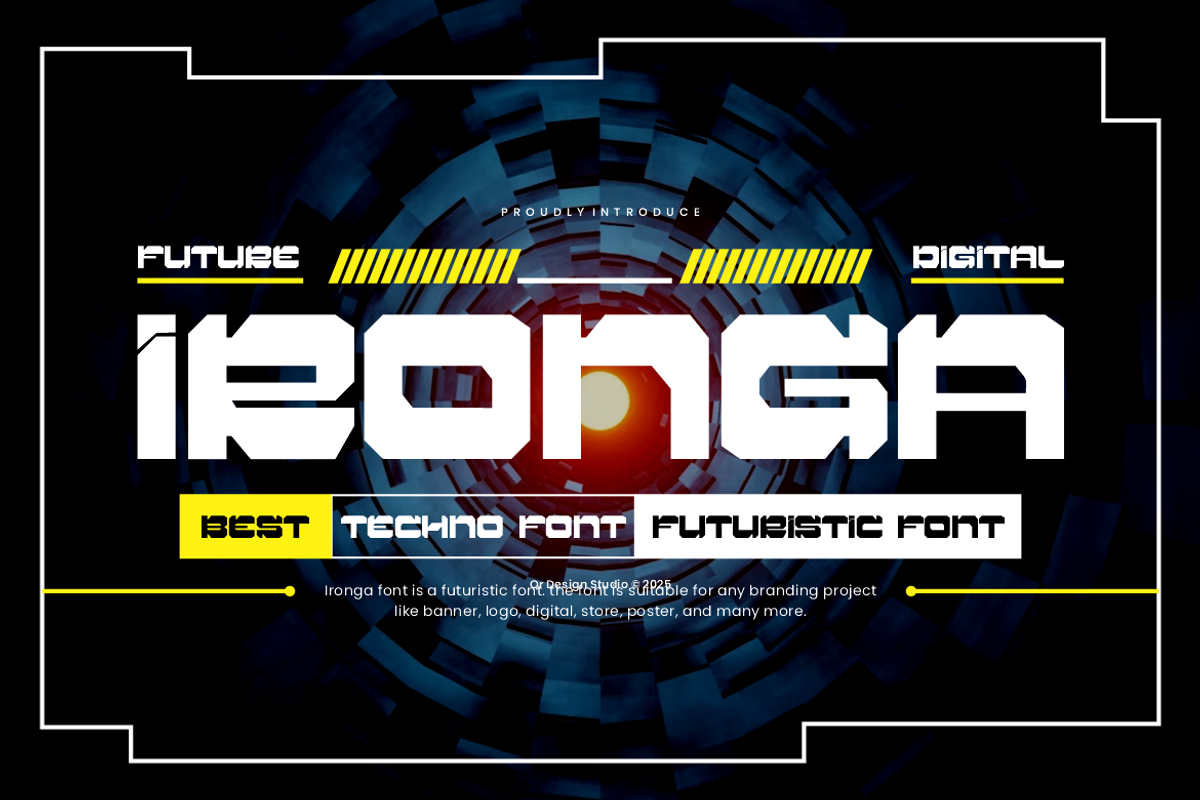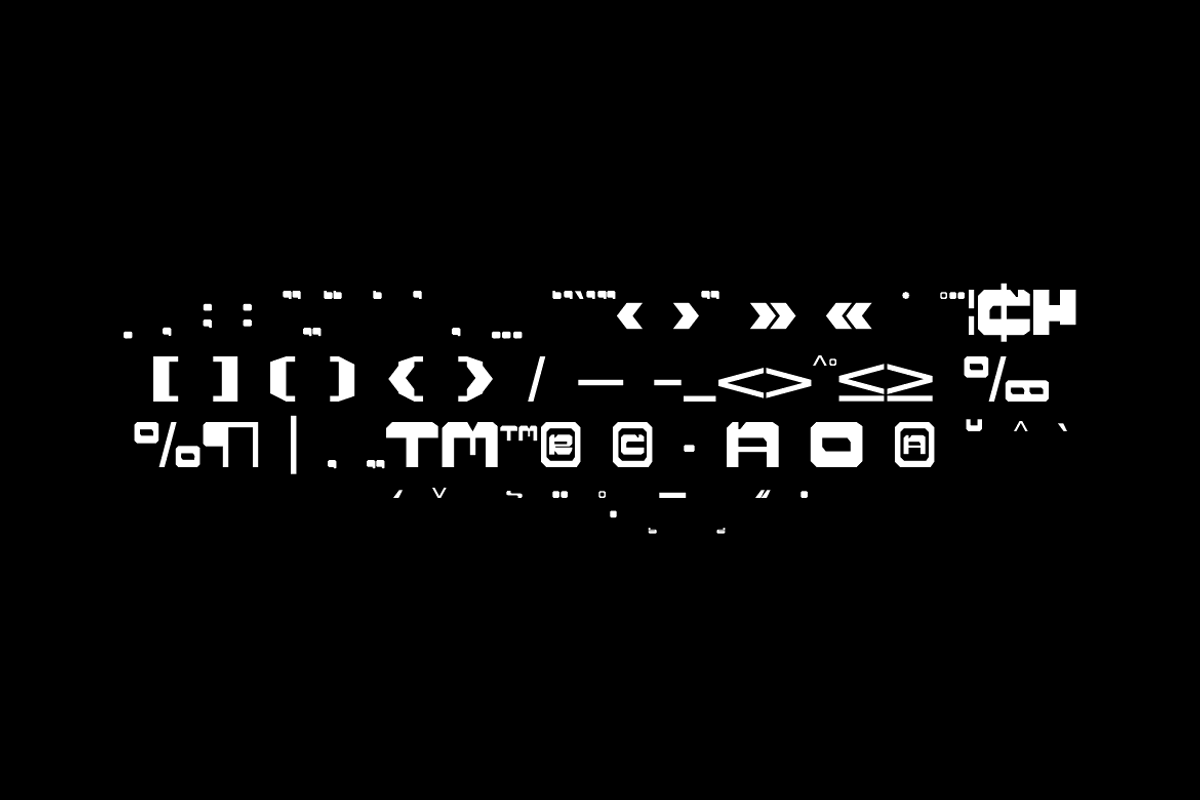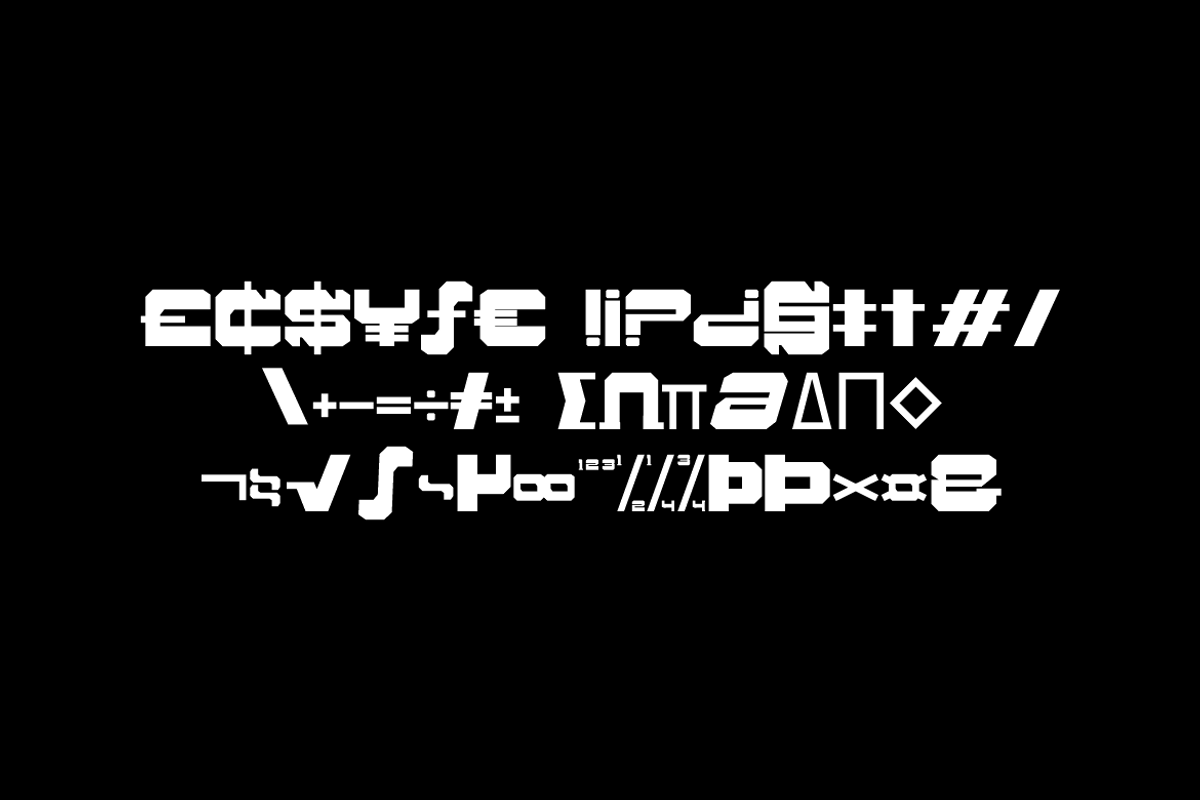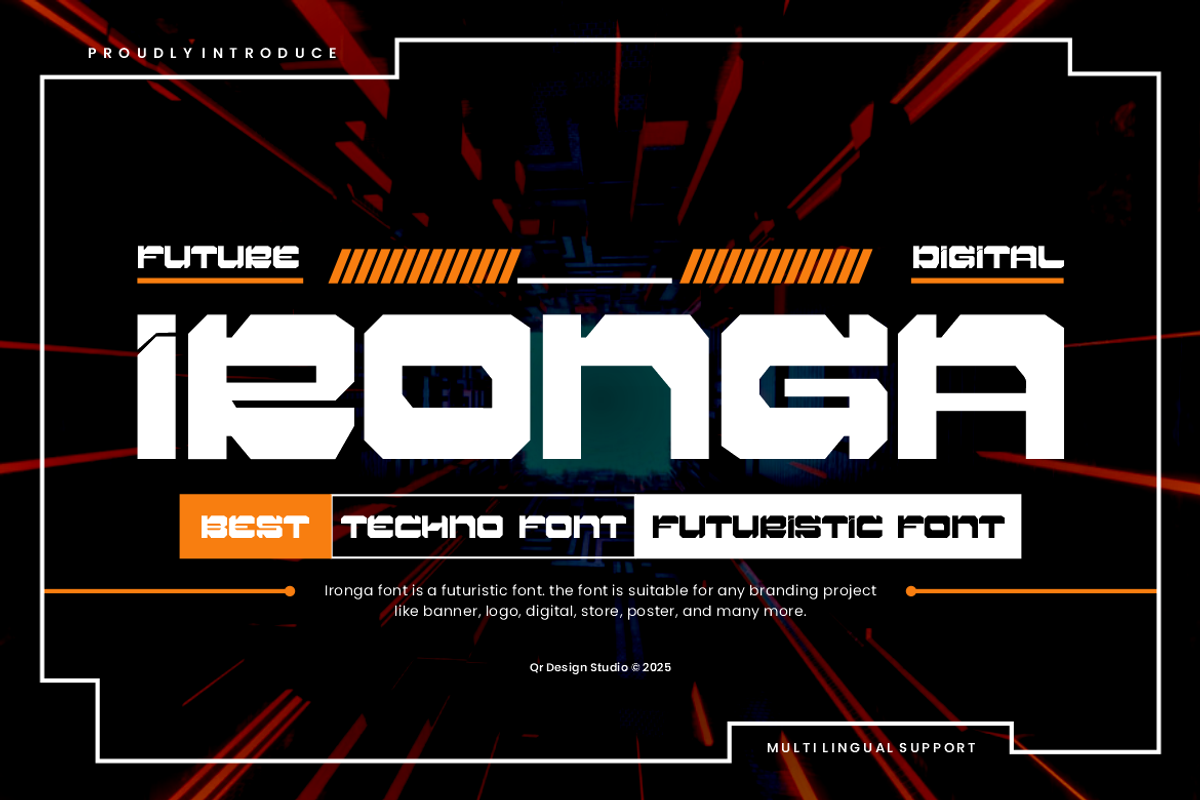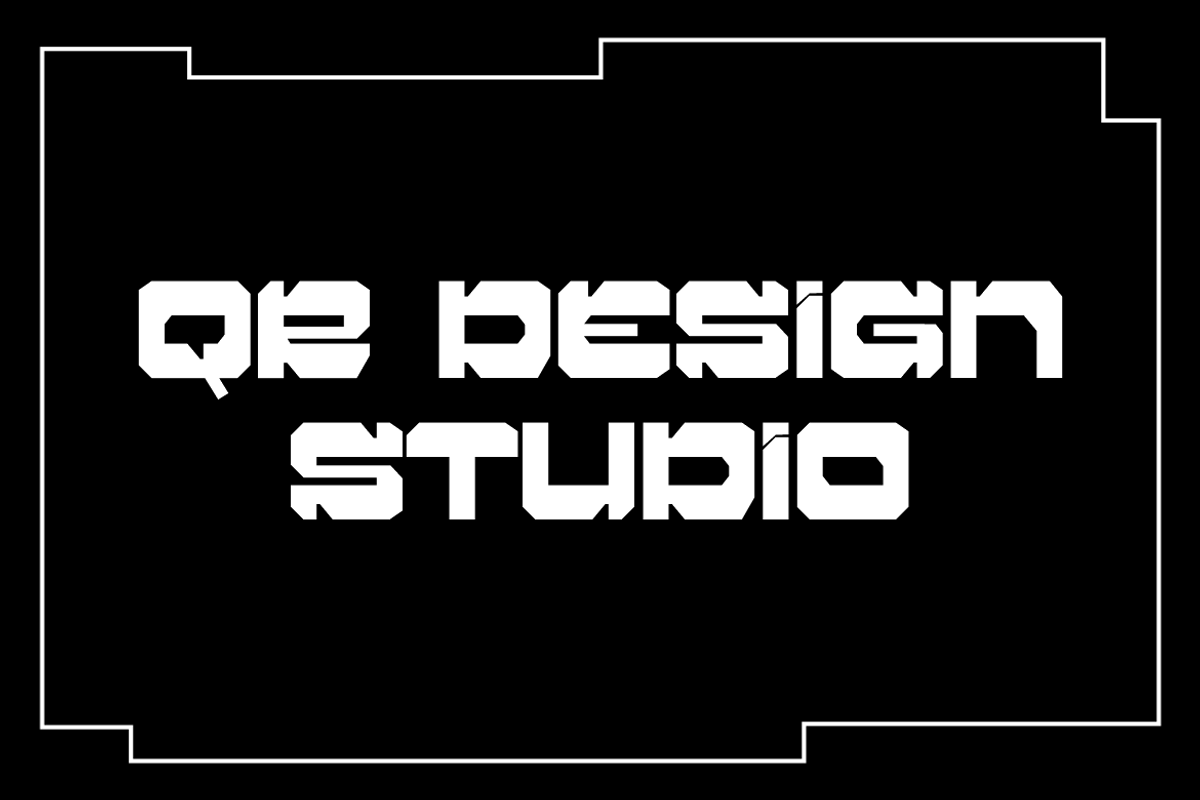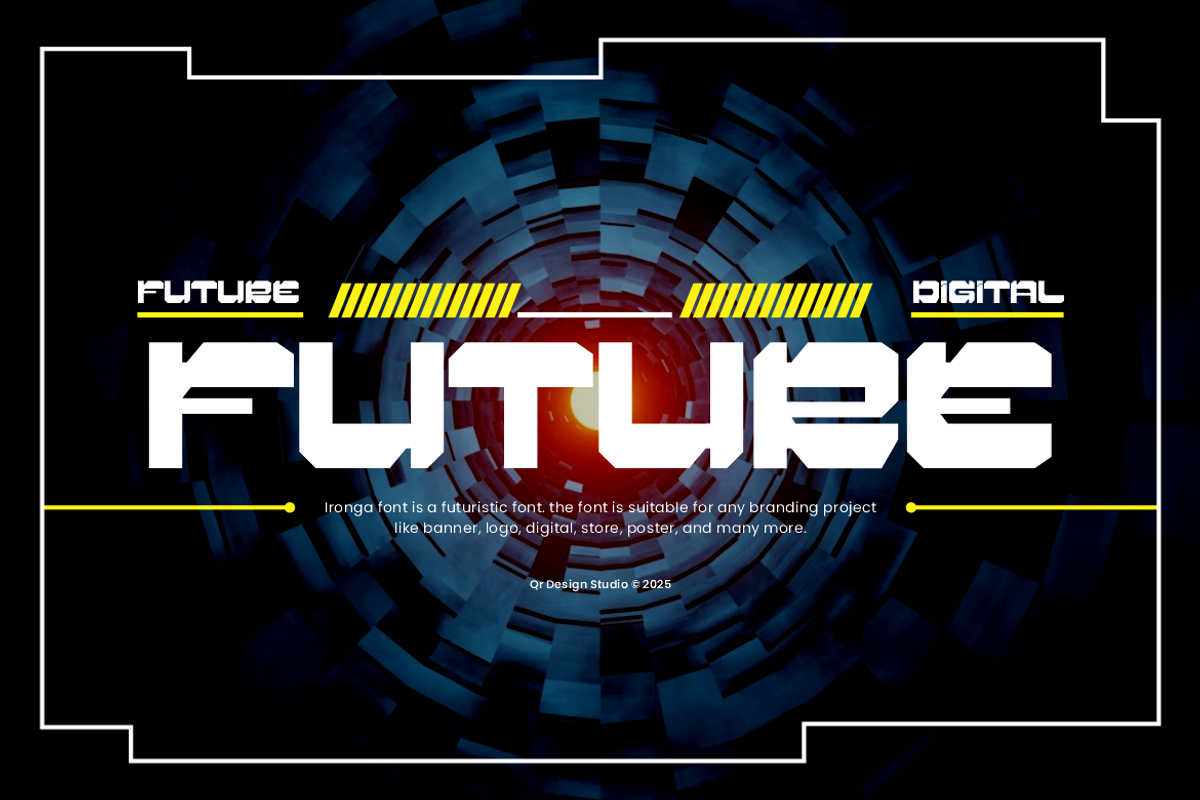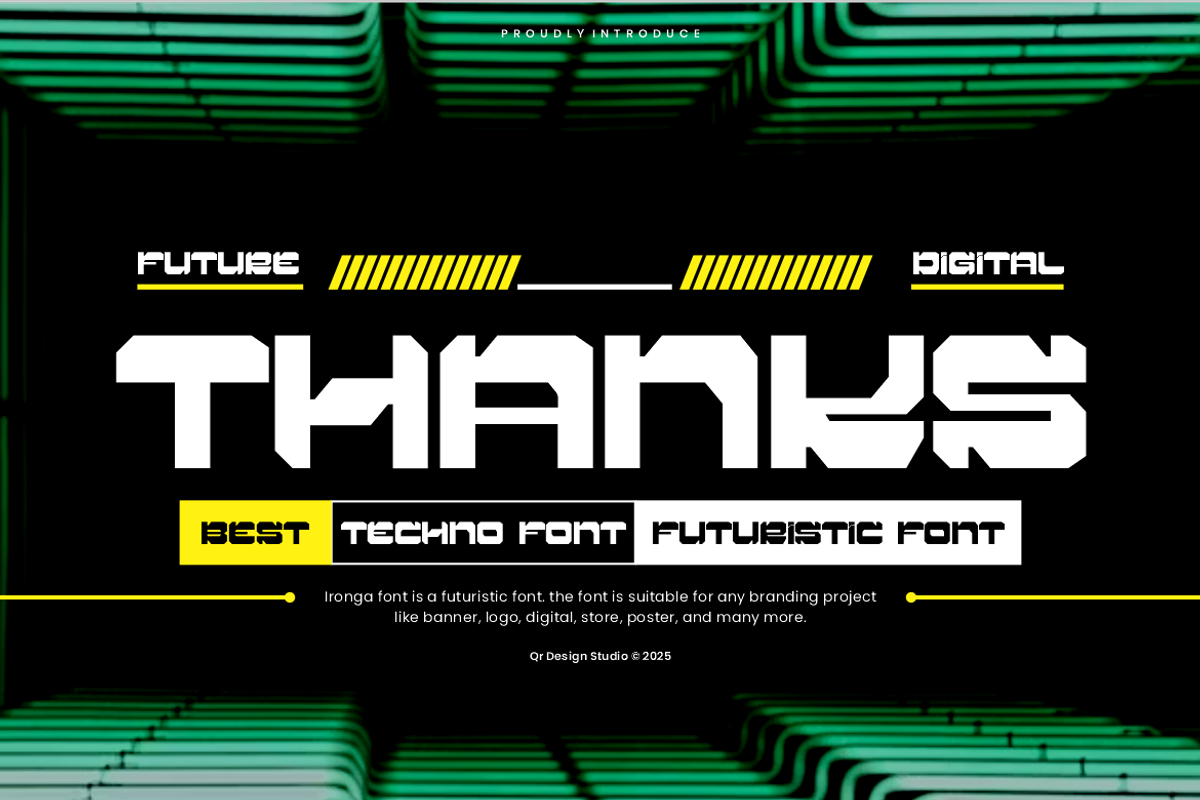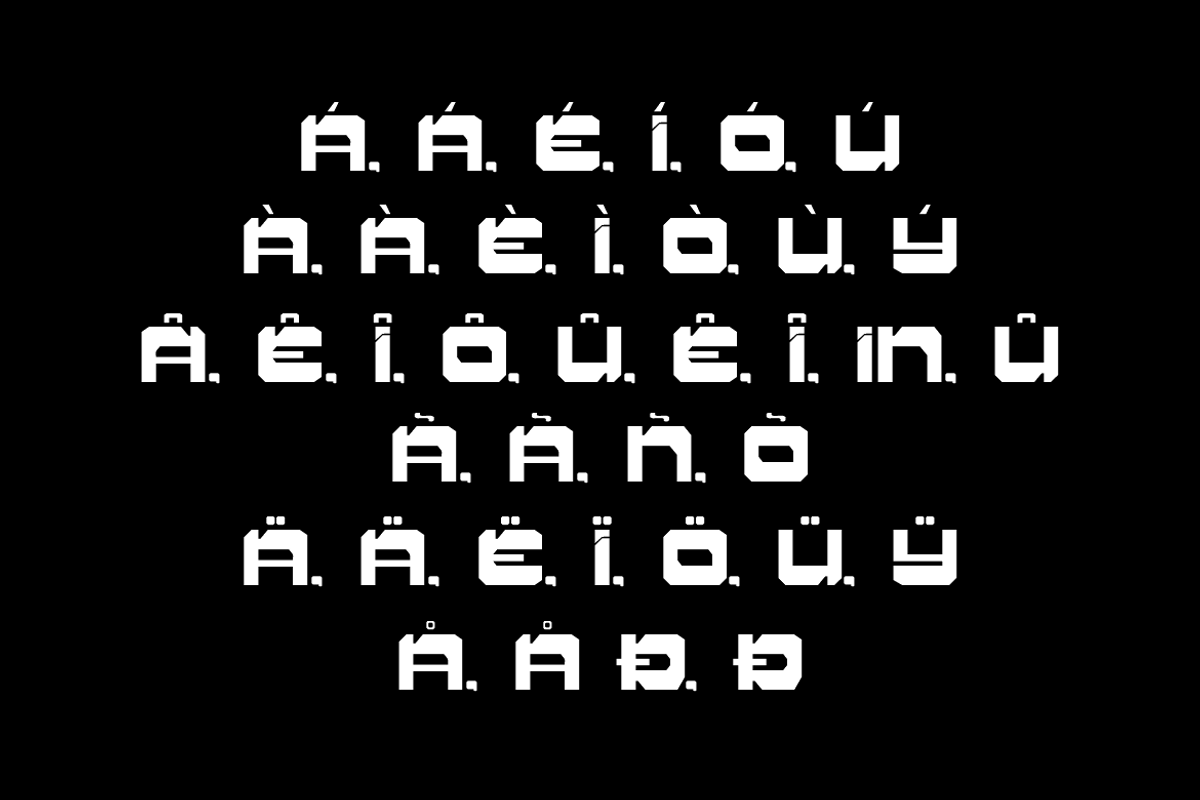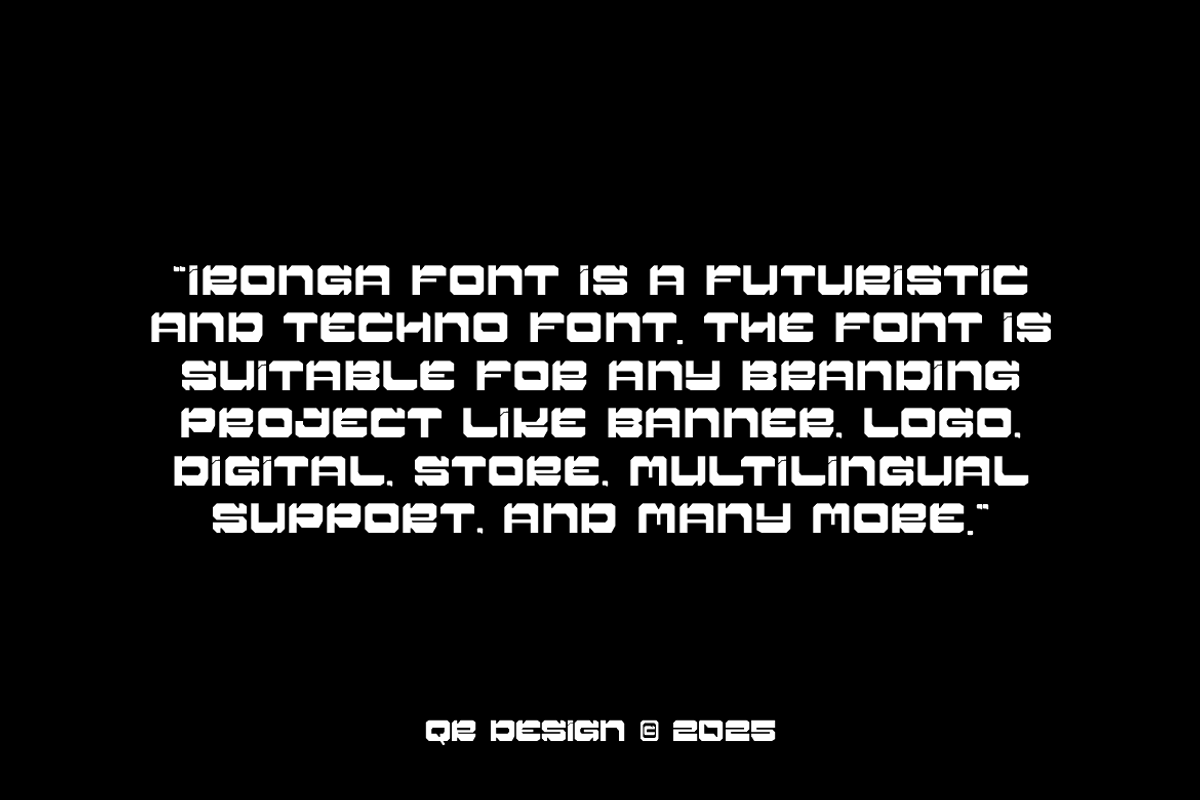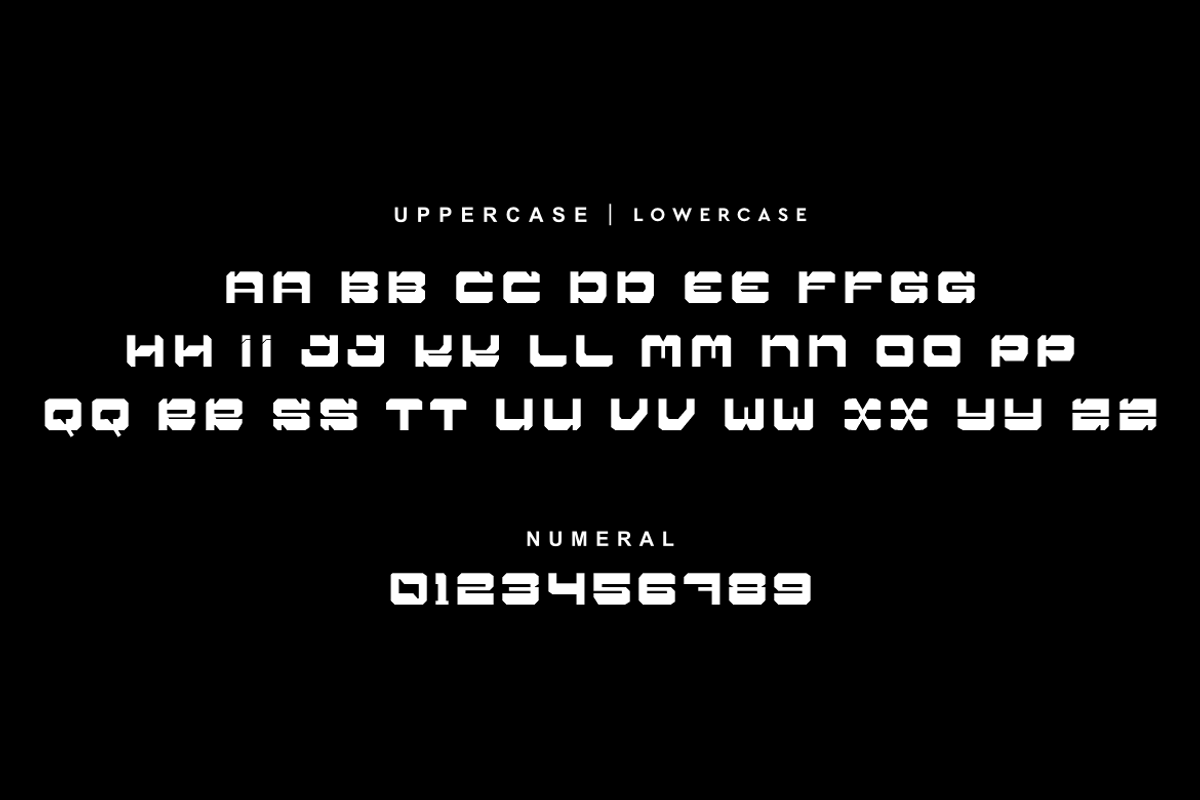
Ironga - Futuristic Font
Ironga Font is a futuristic and authentic display font. The font is suitable for any branding project like poster, logo, digital, and many more. Outstanding in a wide range of contexts.